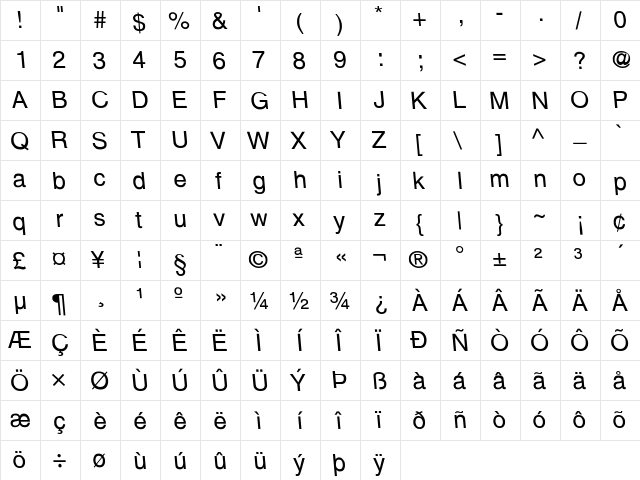
ChesslaerMedium Regular
ChesslaerMedium takes a measured approach to typography — its balanced proportions and neutral character make it a reliable workhorse for both digital and print work.